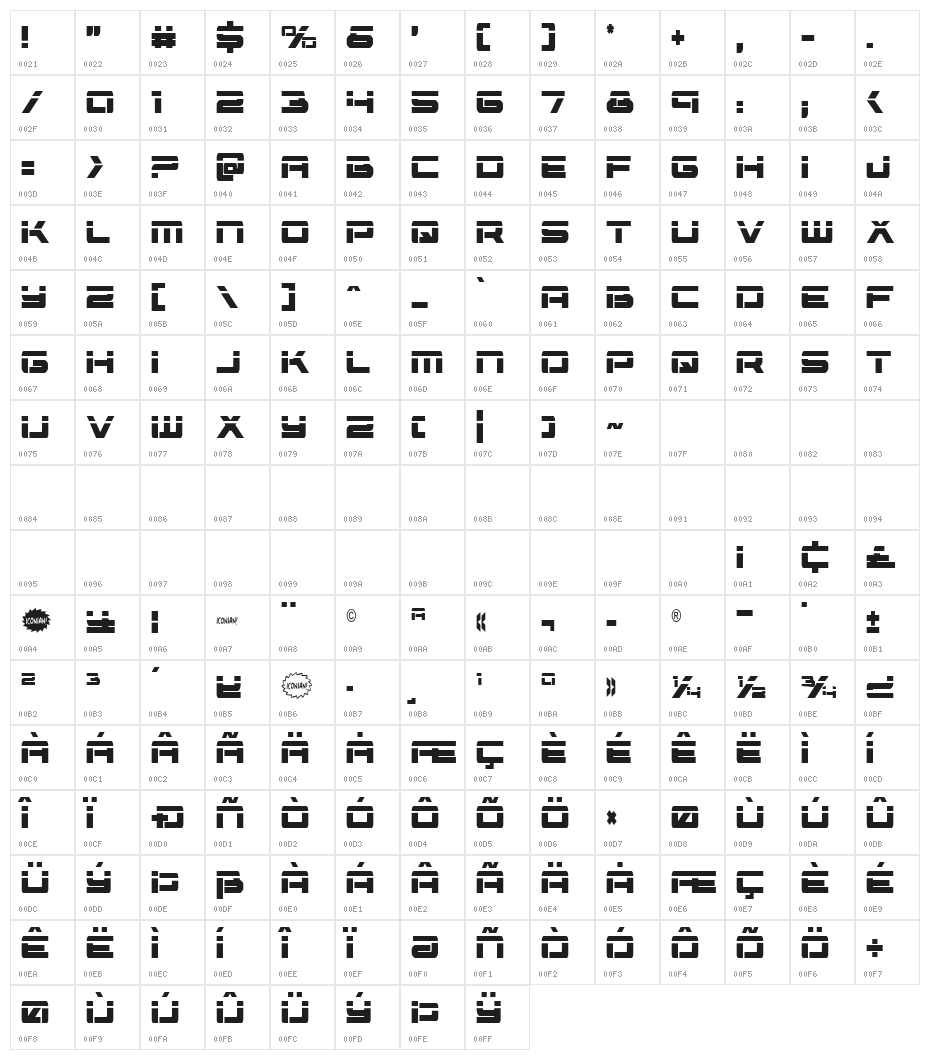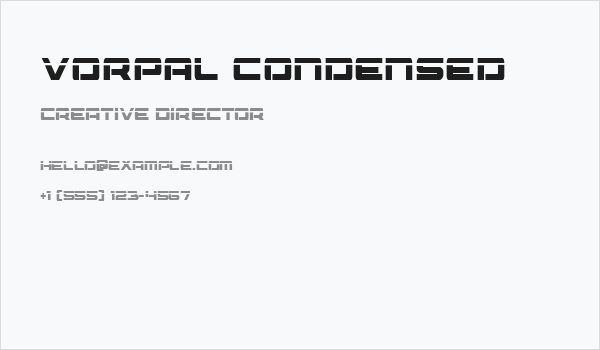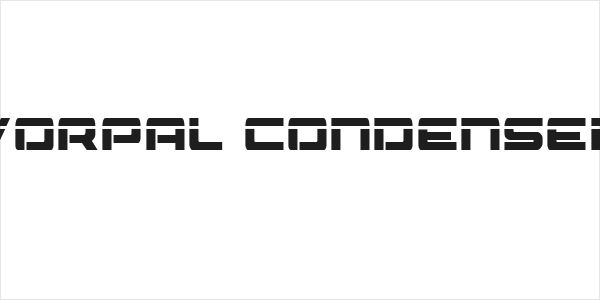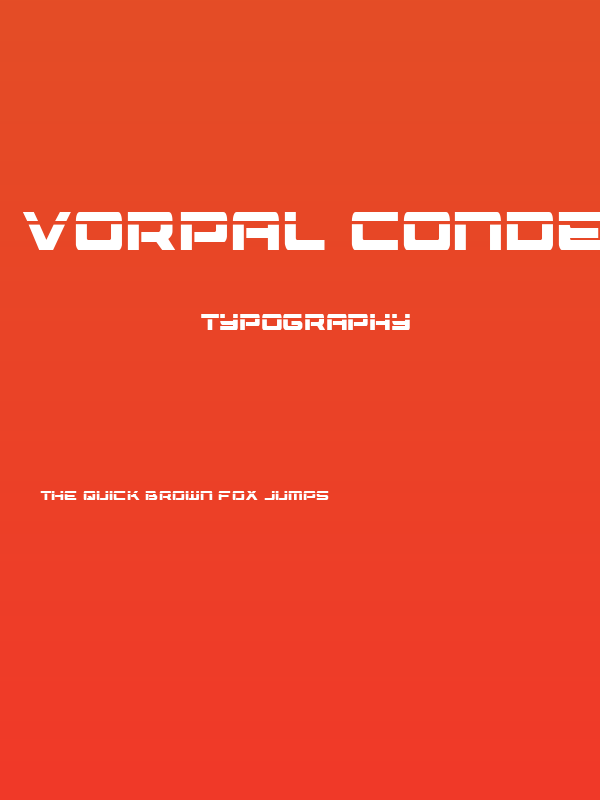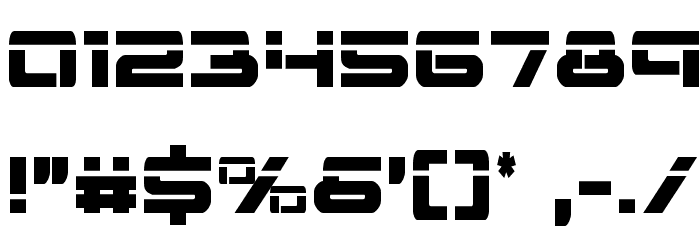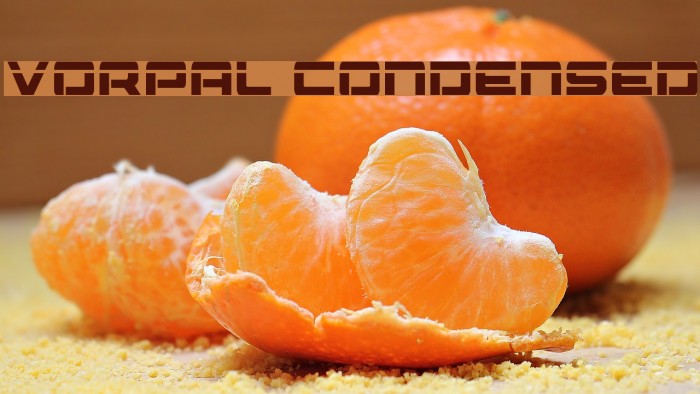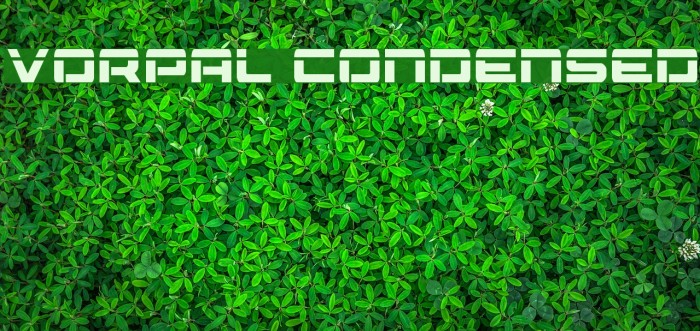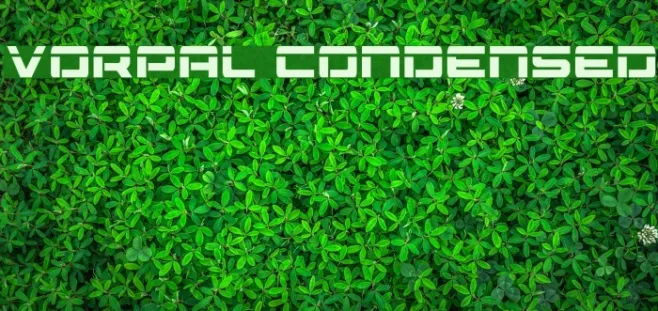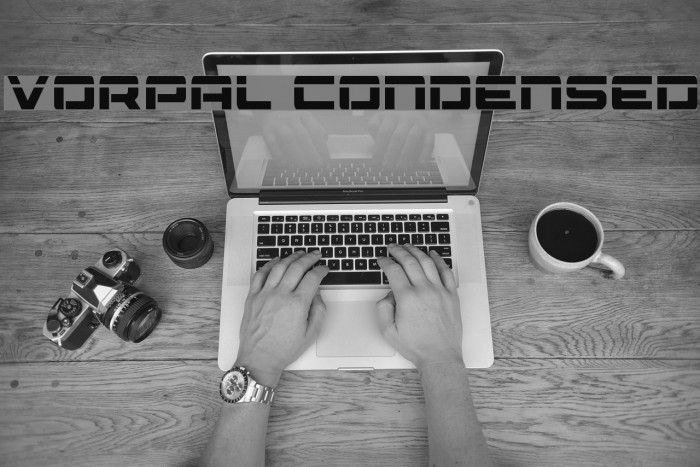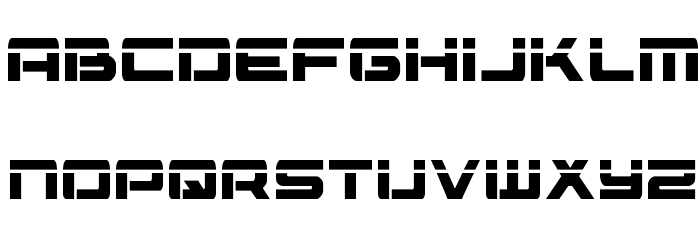
Vorpal Condensed Font
Vorpal Condensed Description
This font features a bold, futuristic design with a condensed structure. The characters are geometric and angular, with sharp edges and a blocky appearance. The uppercase and lowercase letters maintain a consistent style, emphasizing a modern and industrial aesthetic. The numbers and special characters follow the same design principles, ensuring uniformity across all elements. This font is ideal for projects that require a strong, impactful visual presence.
VORPAL-CONDENSED UPPERCASE
VORPAL-CONDENSED LOWERCASE
VORPAL-CONDENSED OTHER CHARS